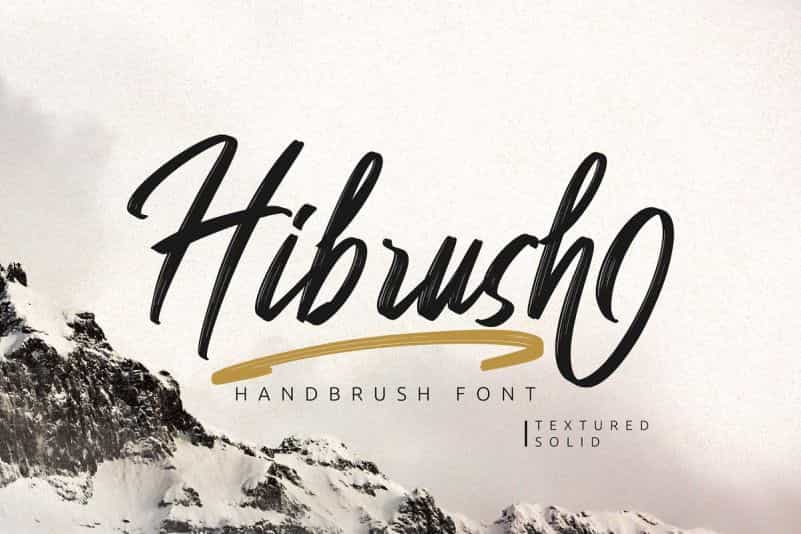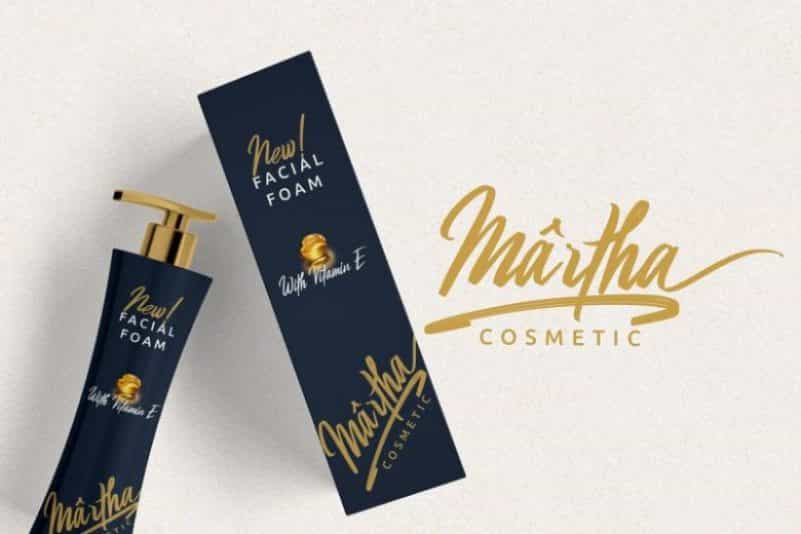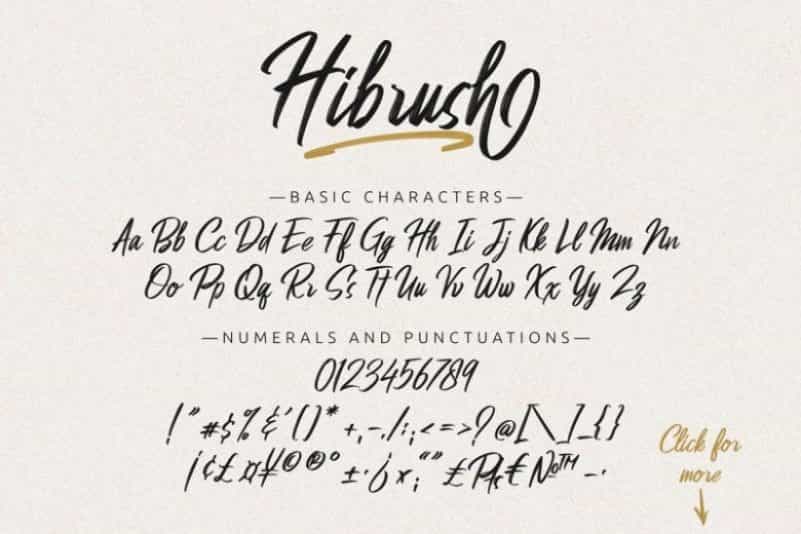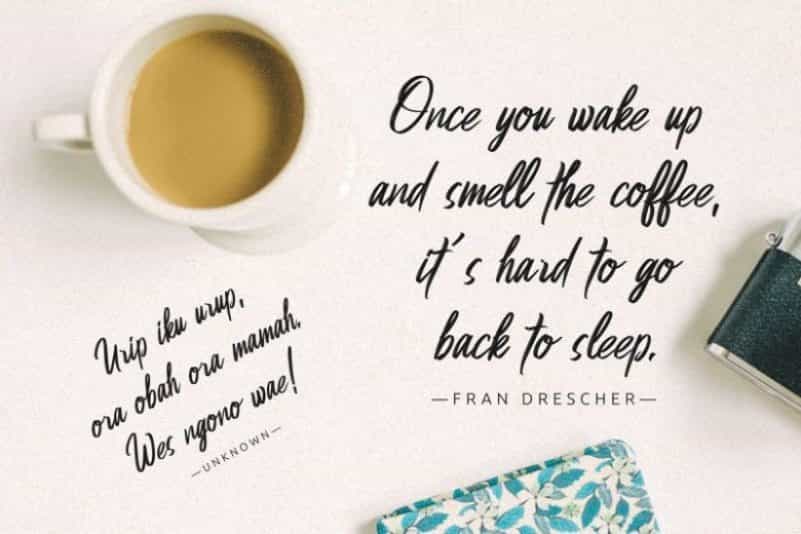
Hibrush is a brush font that comes with two versions: the brush texture version and the solid version. This is ideal for logotype, shirt, T-shirt, Hoodie, packaging, social media graphics, poster, and any project that requires the touch of luxury.